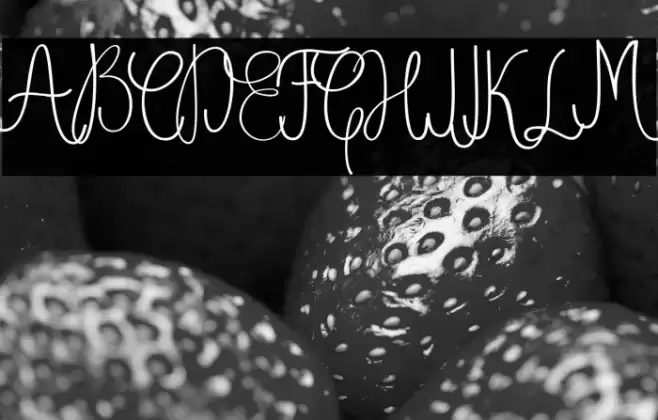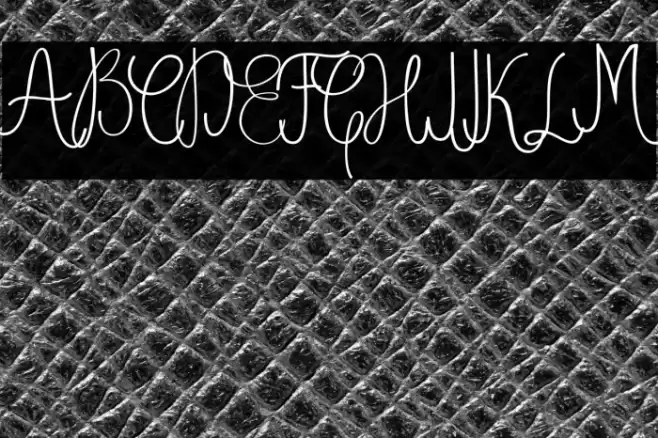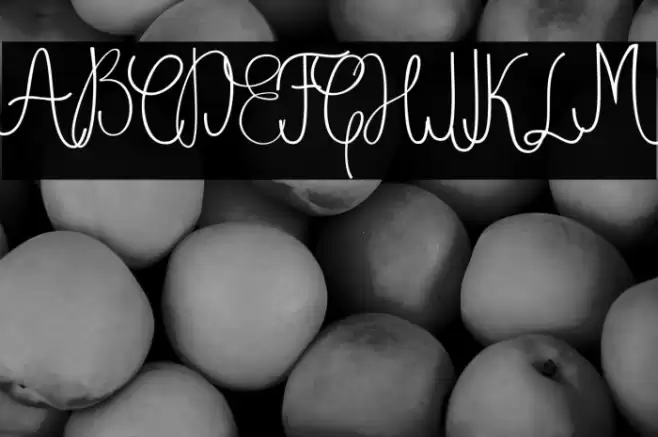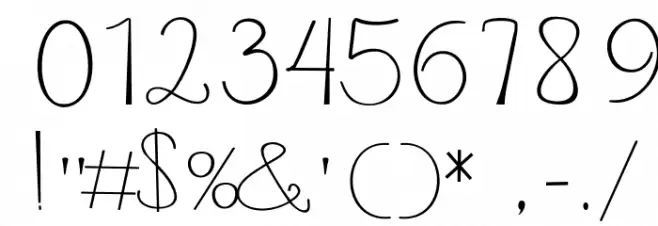
DughterFree Font
DughterFree Description
This font features a whimsical and playful handwritten style, characterized by its fluid and looping strokes. The uppercase letters are bold and expressive, with a distinct flair that adds a touch of elegance and creativity. The lowercase letters maintain a consistent flow, enhancing the overall harmony of the design. Numbers and special characters are crafted with the same artistic touch, ensuring a cohesive look throughout. This font's unique style makes it ideal for projects that require a personal and artistic touch, such as invitations, greeting cards, and creative branding.
A whimsical handwritten font with fluid, looping strokes from Uncategorized fonts.
- Font: DughterFree
- Proposed Projects: Ideal for invitations, greeting cards, creative branding, and artistic projects.